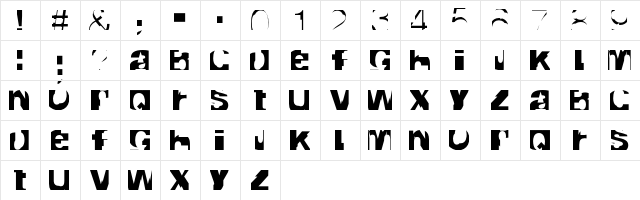
InternationalDisgrace Maximus
Design Context for InternationalDisgrace Typeface
InternationalDisgrace is a composed and adaptable typeface that performs quietly and consistently across a wide range of design contexts.
Pro Tip: Pair InternationalDisgrace with a font of contrasting weight or personality to build a more expressive typographic hierarchy.